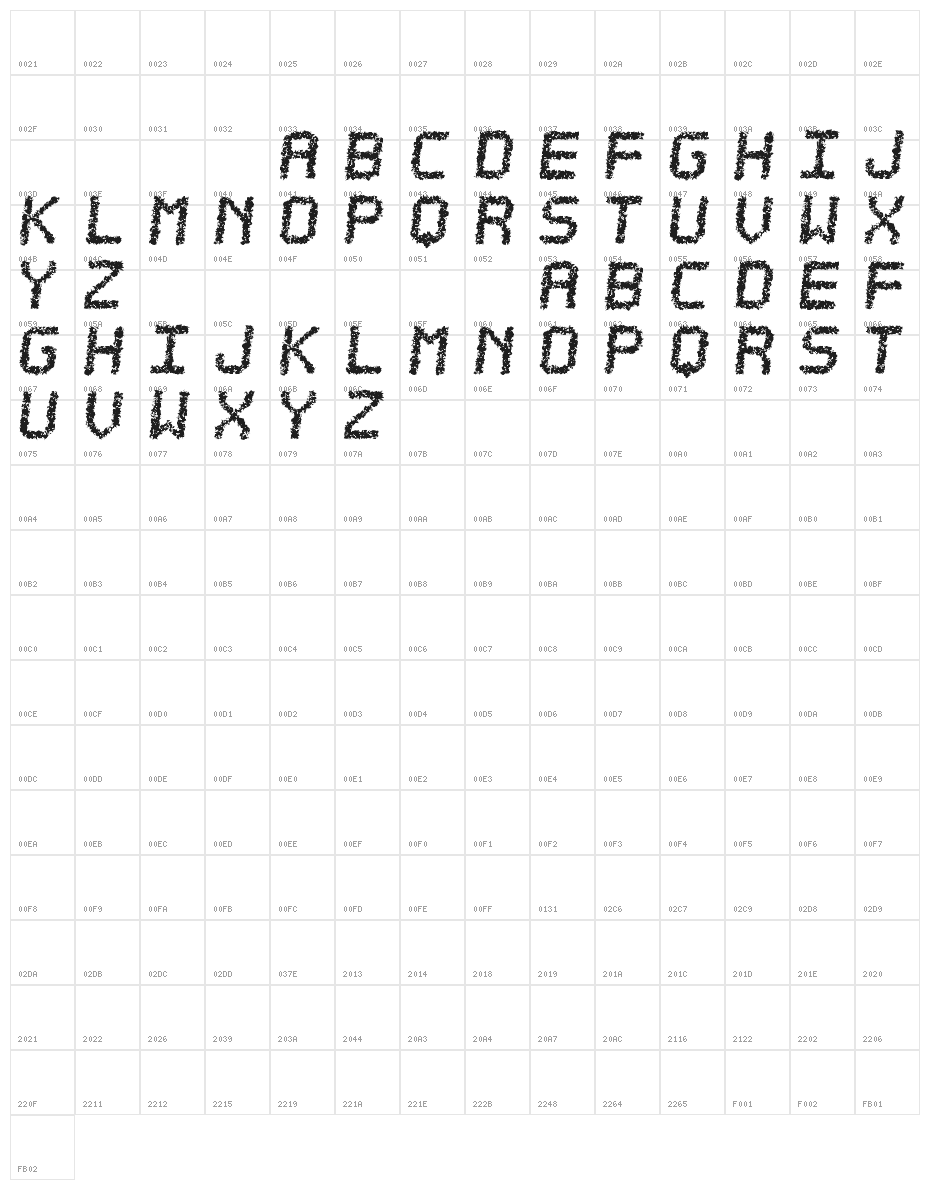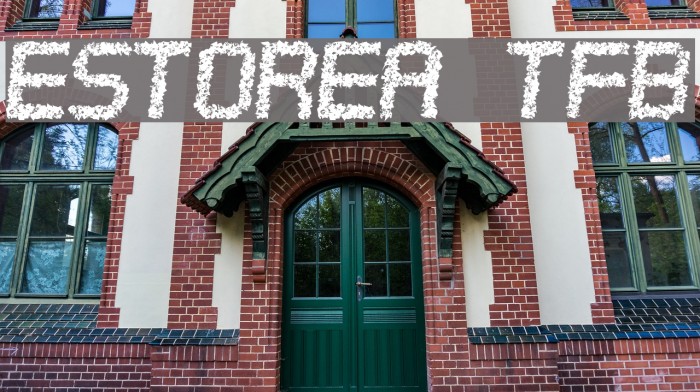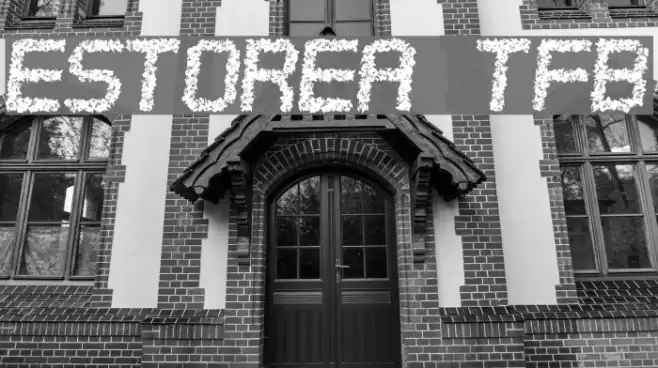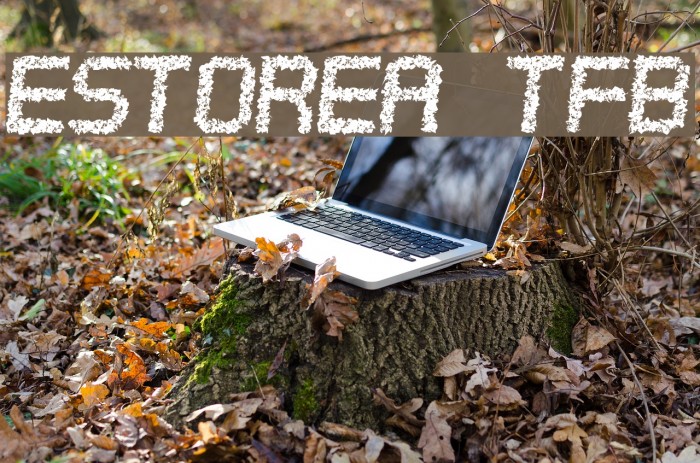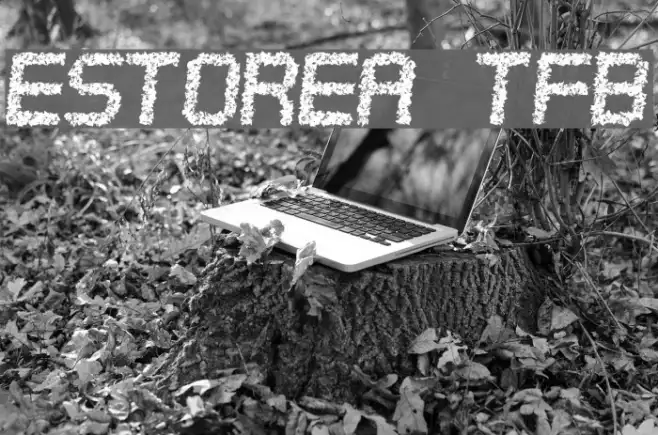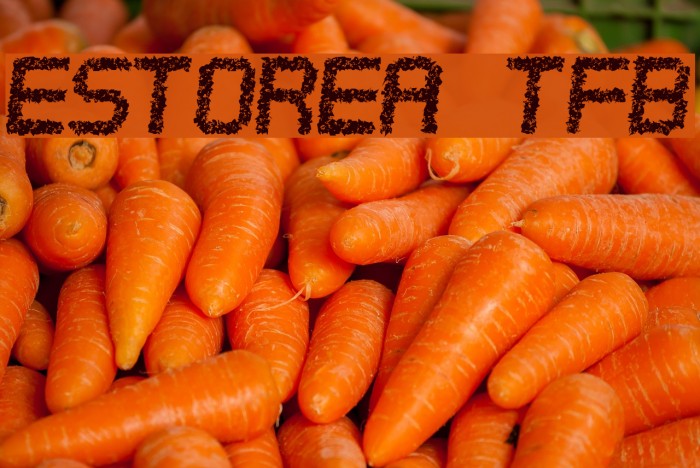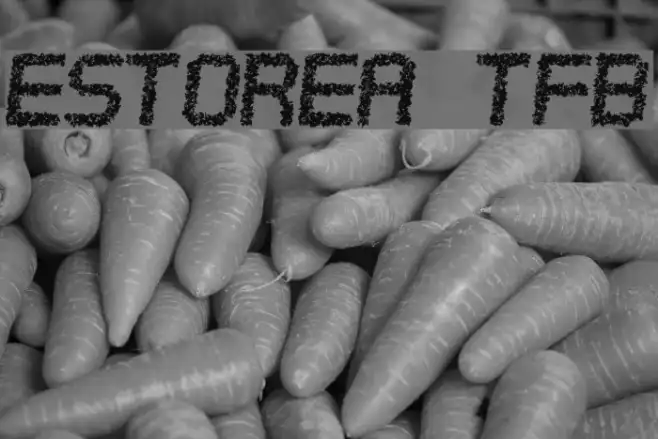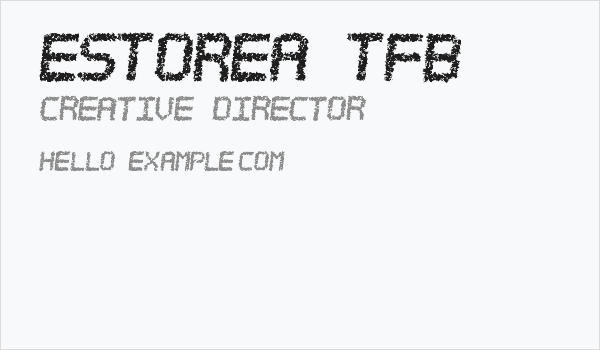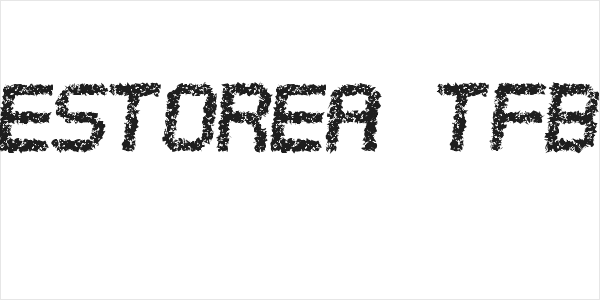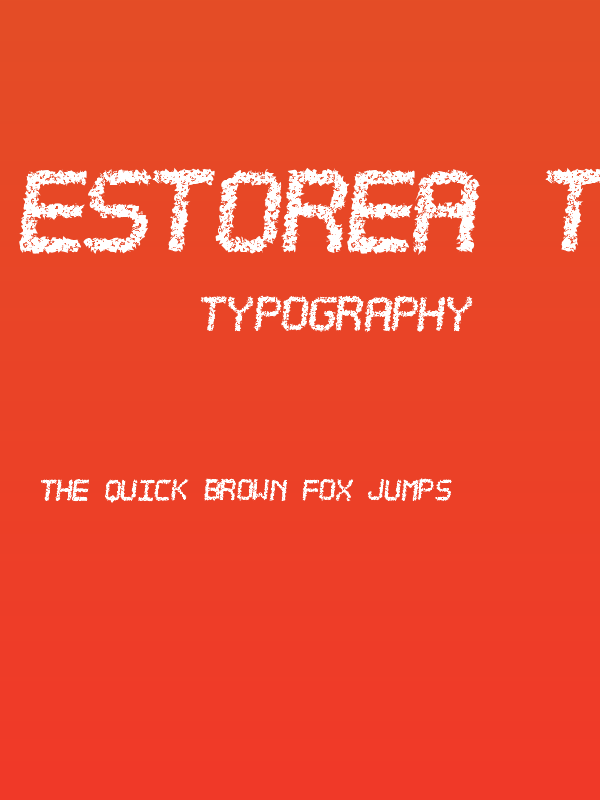
Estorea tfb Font
Estorea tfb Description
This font features a unique, textured appearance that resembles a collection of small particles or dots forming each character. The letters are uppercase and maintain a consistent height, giving a uniform look across the alphabet. The style is playful and artistic, making it stand out with its distinctive dotted pattern. The characters are well-defined despite the textured effect, ensuring readability while adding a creative flair. This font is ideal for projects that require a touch of whimsy or artistic expression, such as children's book covers, playful branding, or creative posters.
| Proposed Projects | Children's book covers, playful branding, creative posters, artistic designs. |